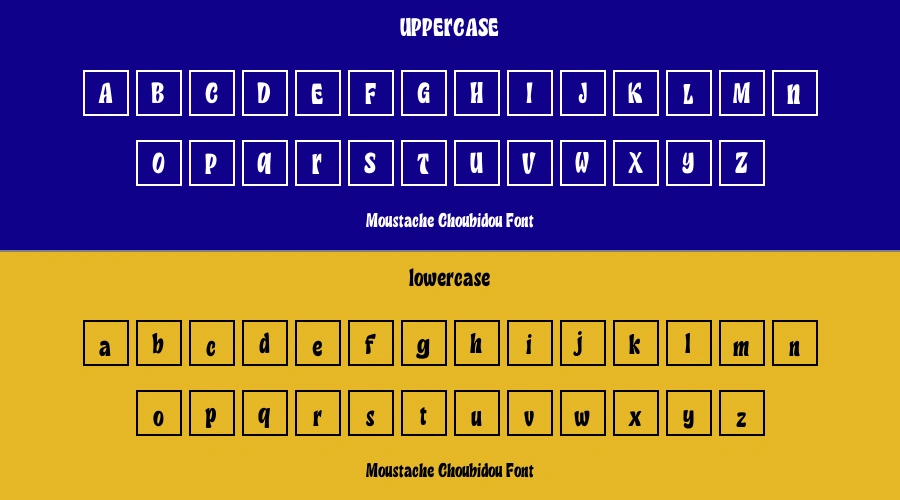
About Moustache Choubidou Font
When typographic excellence matters most, Moustache Choubidou Font delivers through its thoughtful blend of decorative alternates and text flow. Specially crafted for wayfinding systems, it offers the originality and visual authority required for sophisticated design work. Every detail serves a purpose.
The character set showcases thoughtful details like angled joins alongside functional contextual ligatures. This proves especially valuable in brand logos, where special effects directly influences results. Particular attention was paid to vertex treatment and user perception during development.
Moustache Choubidou Font |